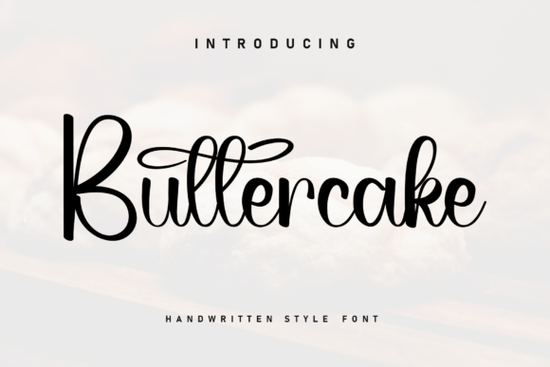
Buttercake Font is a delightful choice for anyone looking to add a soft, handcrafted feel to their designs. This font features characters that seem to gently dance along the baseline, giving it a unique and charming personality. Whether you're working on a personal project or creating something for a client, Buttercake brings a cozy, inviting vibe that can enhance a wide range of visual work.
If you're exploring script fonts, you might find that Buttercake stands out for its warmth and readability. It's especially well-suited for branding, greeting cards, logos, and social media graphics. The style feels personal and approachable, making it ideal for businesses that want to convey a friendly or nostalgic message.
What Makes Buttercake Font Unique?
One of the standout features of Buttercake Font is its handwritten aesthetic. Unlike more rigid typefaces, this font has a natural flow that mimics real pen strokes. This makes it perfect for projects that require a human touch, such as wedding invitations, baby announcements, or handmade crafts.
The font also includes a variety of character styles, allowing for flexibility in how you use it. You can mix and match different elements to create a custom look that fits your design needs. Its legibility at smaller sizes means it works well for body text, while its decorative flair shines in headlines and titles.
Best Uses for Buttercake Font
Designers often turn to Buttercake Font for projects that benefit from a warm, personal feel. For example, print-on-demand sellers might use it for t-shirts, mugs, or posters with cute, whimsical messages. Small businesses looking to build a brand identity that feels authentic could also find value in this font.
Crafters and hobbyists may appreciate how Buttercake adds a handmade quality to digital artwork, scrapbooking, or DIY projects. It’s also a great option for educators who want to create engaging materials for students, such as lesson plans or classroom decorations.
How to Use Buttercake Font Effectively
To get the most out of Buttercake Font, consider pairing it with simpler, sans-serif fonts for balance. This contrast helps maintain readability while still allowing the script to shine. You can also experiment with different colors and backgrounds to highlight the font’s unique qualities.
When using it in digital formats, make sure to test it across various devices and screen sizes. This ensures that the font remains legible and visually appealing no matter where it’s viewed.
If you're new to working with script fonts, start by applying Buttercake to a small part of your design like a headline or logo and gradually expand its use as you become more comfortable.
Final Thoughts
Buttercake Font is a versatile and attractive option for anyone looking to add a touch of warmth and personality to their designs. Its unique style and ease of use make it a valuable addition to any designer’s toolkit. Whether you're working on a personal project or a professional one, this font can help bring your vision to life with a soft, inviting feel.
Before finalizing your design, take a moment to review how Buttercake looks in different contexts. Testing it in real-world scenarios can help you make better decisions about its placement and usage.
Remember, the goal is to create something that feels genuine and connects with your audience. With the right approach, Buttercake Font can be a powerful tool in achieving that goal.